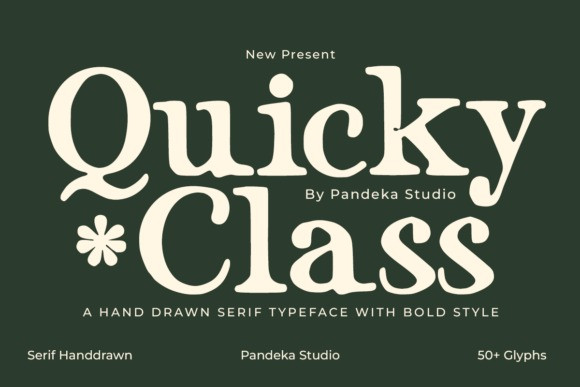
Quicky Class Font
Quicky Class Font is a hand-drawn serif font with a bold, nostalgic touch. Inspired by vintage signage and 50s aesthetics, it blends retro vibes with modern elegance. Each letterform carries a handcrafted personality that is perfect for logos, headlines, packaging, apparel, and branding, and it aims to stand out with flair and fun.
With uppercase, lowercase, numerals, symbols, and over 50 unique glyphs, Quicky Class is versatile and full of charm. Whether you’re designing for a coffee brand, eco-product, retro label, or heartfelt message, this font brings warmth and timeless character.